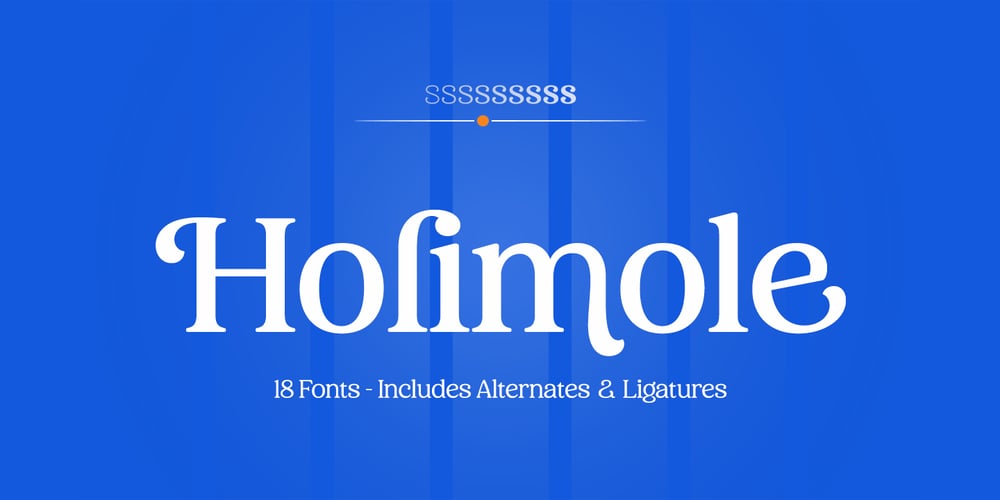
Holimole
Holimole font
Holimole Font Family was designed by Muammar Kadafi and published by Attract Studio. Holimole contains 19 styles and family package options. Holimole is a powerful blend of ancient forms and contemporary design strategies. Fonts expand their uses by weighting from thin to black. Natural curves, swells and sloping stems, character develops as the font increases in weight bringing strength and utility to classic serifs.Holimole also comes in Variable, standard and italic which have unique ligatures and alternatives to enhance the beauty of each design.